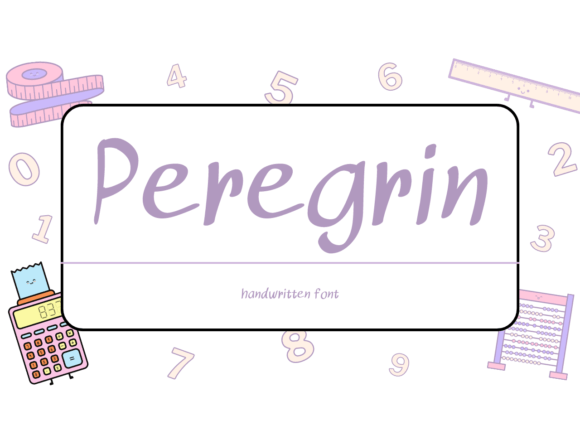
Behold, Peregrin Font, an Eclectic Creation That's a Font-Finder's Dream!
Step into a world where the written word dances with unbridled charm and charisma, brought to life by Peregrin Font. This playful, delightfully childish script is a breath of fresh air, effortlessly charming all who lay eyes upon it. Its ability to convey impeccable friendliness and warmth transforms your designs, making them impossible to resist.
A Versatile Gem for Every Occasion:
Peregrin Font is a creative force that knows no bounds. Whether you're a seasoned craftsman seeking to add a touch of whimsy to your creations or a digital designer looking to breathe life into your projects, this font has a place in your toolbox. Its versatility shines through in presentations, where it captivates audiences with its captivating aura. Even in the creation of handmade greeting cards, Peregrin Font weaves its magic, adding a personal touch that tugs at heartstrings.
The Ultimate Go-To Font:
In the vast realm of fonts, Peregrin Font stands tall as a reliable companion, ready to elevate your projects with timeless appeal. No matter the occasion, this font seamlessly adapts, transforming ordinary text into extraordinary expressions. Its ability to connect with audiences on an emotional level makes it the perfect choice for any design endeavor.
A Journey of a Thousand Creations:
With Peregrin Font as your ally, embark on a boundless journey of creativity, where each project becomes a masterpiece. Its easy-to-read nature ensures effortless comprehension, while its playful charm injects a sense of joy and wonder into your designs. From the delicate curves to the bold strokes, every letter in this font is a testament to its artistry.
A Font that Captivates and Endures:
Peregrin Font possesses a captivating allure that draws attention and leaves a lasting impression. Its unique style effortlessly captures the essence of creativity, making it a timeless choice that never fails to impress. No matter how the design landscape evolves, Peregrin Font's charm remains unwavering, a testament to its lasting power.